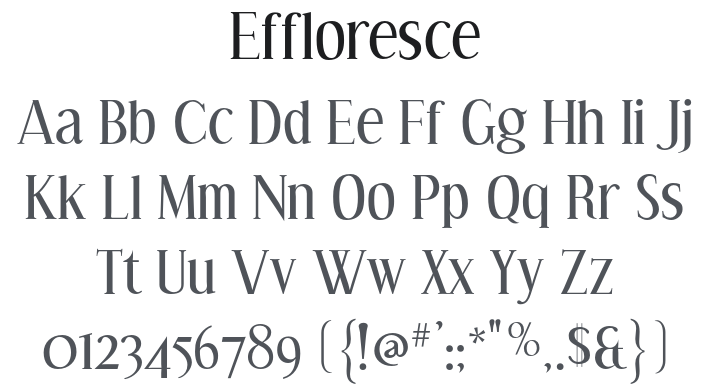
Effloresce Font Family
About Effloresce
Effloresce is a rustic, condensed serif display typeface with a warm, old-timey homey character — handcrafted letterforms with a rural, welcoming flavour that feels like painted wooden signage from a country general store. Available in Regular, Italic, Bold, Bold Italic, and an Antique variant with extra worn character. Perfect for artisan branding, country lifestyle designs, farm-to-table restaurant signage, vintage labels, and any design needing unpretentious, old-world charm.